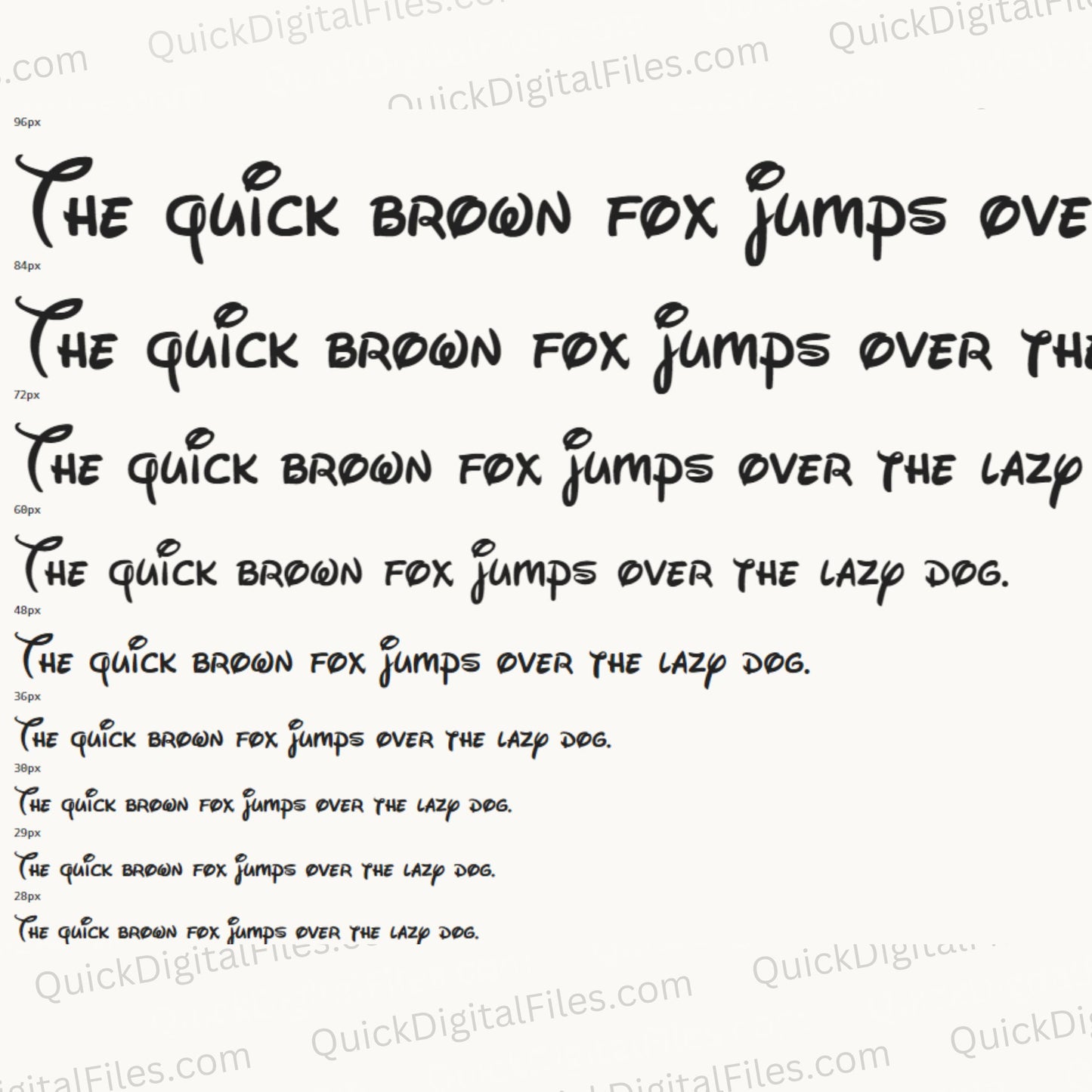
Waltograph: Font
Introducing the Waltograph Font, a kid-friendly and charming typeface reminiscent of the classic cursive styles seen in beloved children’s movies. This font is perfect for adding a touch of magic to your personal projects. While not owned, endorsed, or created by Disney, it captures a similar whimsical and nostalgic feel. FREE FONT!
- Disney-Inspired Style: A kid-friendly font with an old-style cursive look, perfect for creating a magical and playful atmosphere.
- Multi-Language Support: Supports over 60 languages, making it a versatile choice for global use.
- Versatile Use: Ideal for children’s book designs, invitations, party decorations, school projects, and more.
- Parents and Teachers: Create enchanting labels, worksheets, and classroom decorations.
- Graphic Designers: Use this font for playful and magical designs in children’s books, posters, and more.
- Event Planners: Design charming invitations and decorations for children’s parties and events.
- Craft Enthusiasts: Add a touch of magic to your DIY projects, scrapbooking, and more.
- Font Style: Kid-friendly, Old-style Cursive